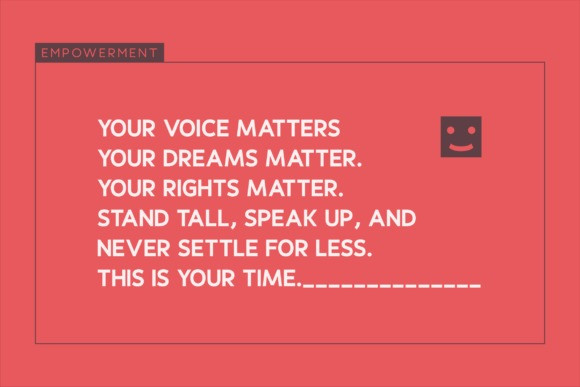
Articolom Font
Articolom Font is a bold, all-caps sans serif font designed for the modern designer. With its clean lines and minimalist aesthetic, this typeface exudes strength and authority. It is perfect for projects that require a sense of professionalism and impact. Whether you’re designing a logo, website, or print material, Articolom makes a statement with its sharp, crisp edges.
The strong, geometric structure of Articolom ensures versatility, from digital interfaces to high-end branding. The all-caps design emphasizes clarity and readability, making it ideal for headlines, posters, and anywhere you need your message to stand out.
Features:
All-caps design for maximum impact
Modern, minimalist style with a focus on readability
Bold, clean lines for a confident and professional look
Ideal for branding, logos, packaging, and digital design
Perfect for both large-scale headlines and smaller text blocks
Articolom is perfect for brands, agencies, and designers looking to create a modern, authoritative identity. It’s especially suitable for tech companies, corporate branding, and luxury design projects where style and readability are paramount.
Stand out with Articolom – a typeface built to make an impression.